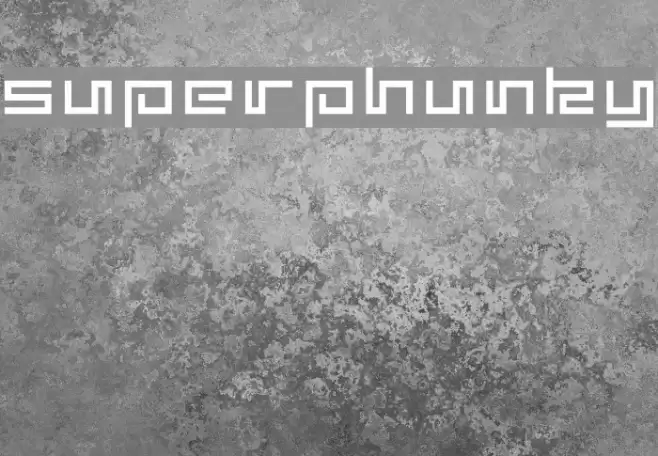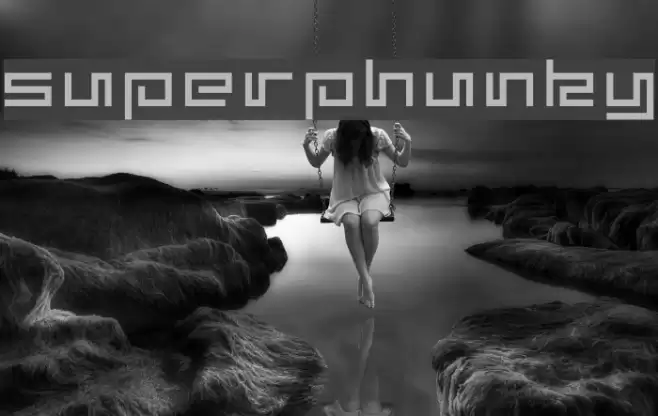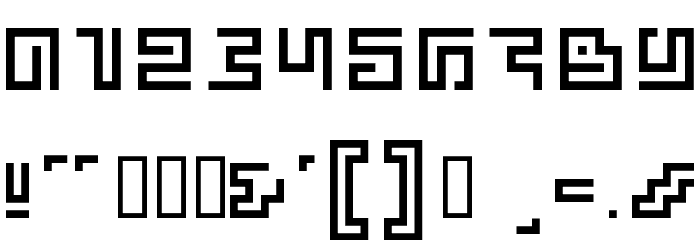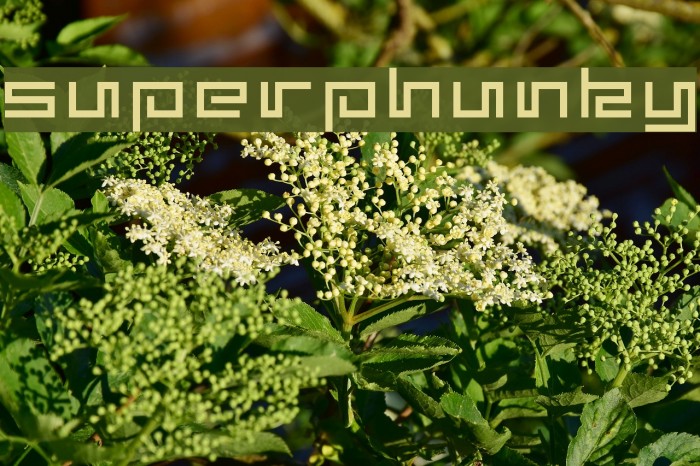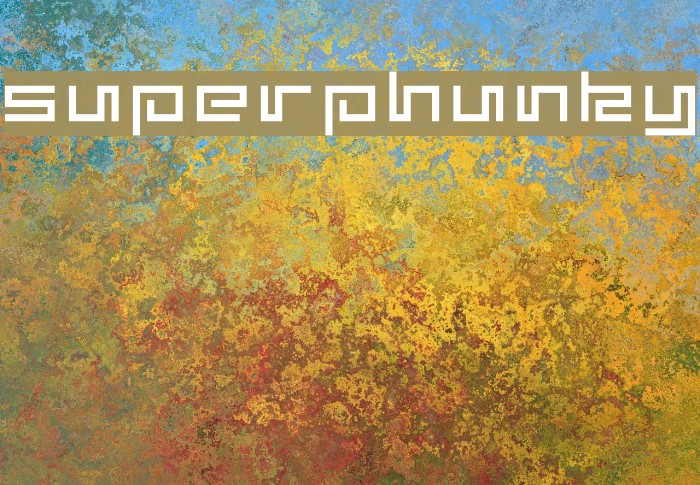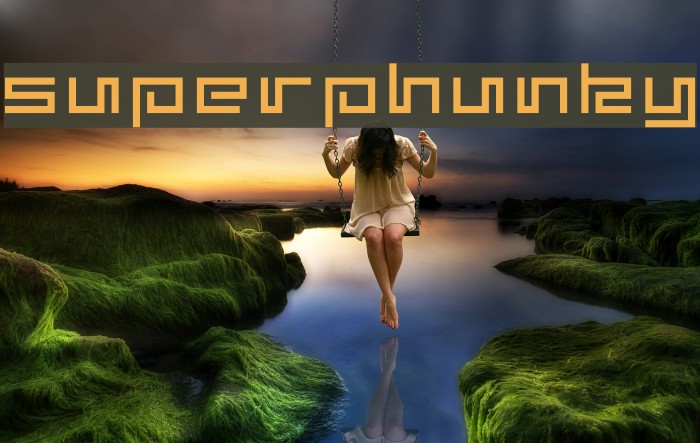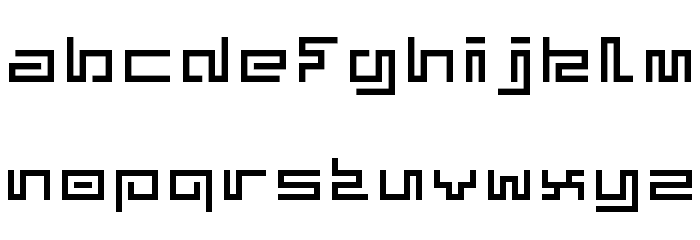
superphunky Font
superphunky Description
This font features a bold, geometric design with a distinctly digital and futuristic aesthetic. Each character is constructed from thick, block-like lines that form angular shapes, giving it a pixelated, retro video game feel. The uppercase and lowercase letters maintain a consistent height, creating a uniform appearance across the text. The numerals and special characters follow the same design principles, ensuring a cohesive look throughout. The font's style is reminiscent of early computer graphics, making it ideal for projects that aim to evoke nostalgia or a tech-forward vibe.
A bold, geometric font with a digital, retro aesthetic from Pixel fonts.
- Proposed Projects: Ideal for video game design, tech branding, digital art projects, and retro-themed posters.
- Overall Style: Futuristic, Retro